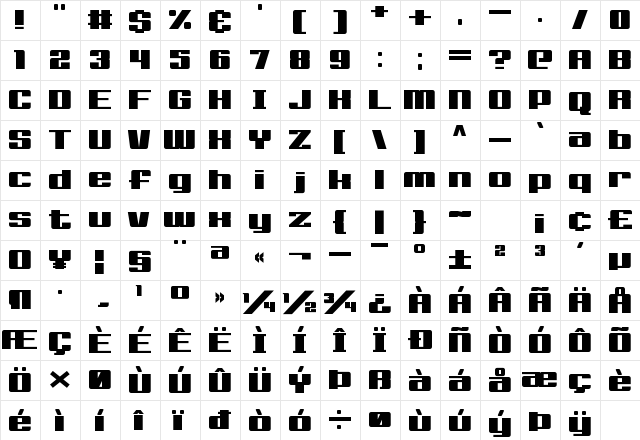
Big Old Boldy Regular
Design Context for Big Old Boldy Typeface
Big Old Boldy offers clean, dependable letterforms without strong stylistic allegiance, making it a practical choice for designers who need flexibility. The heavy weight commands attention and anchors typographic hierarchies.